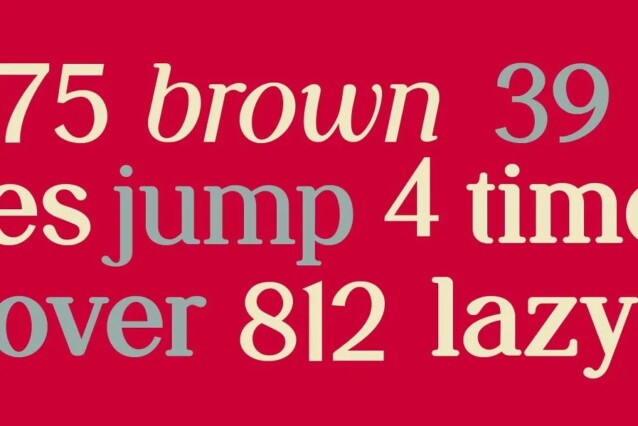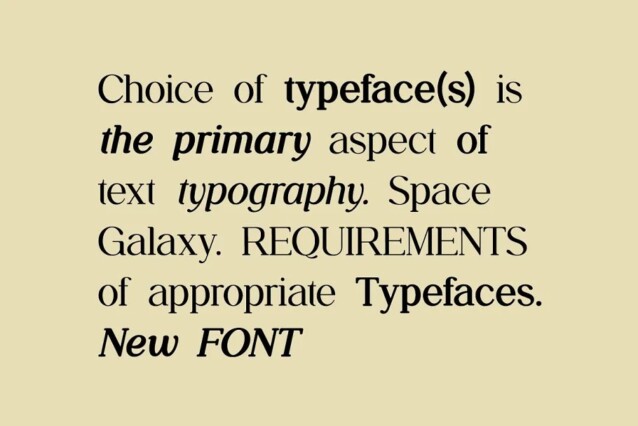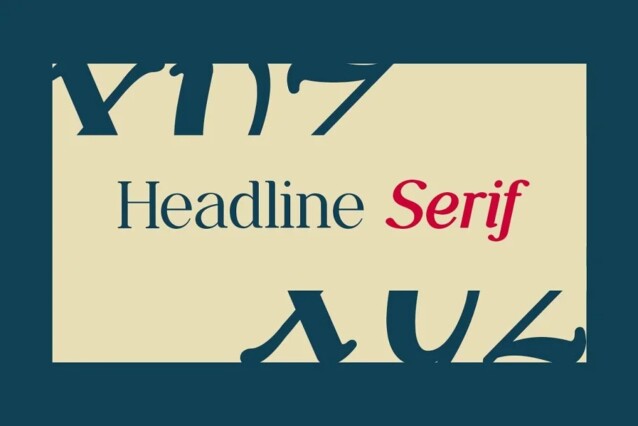
New Bashopilias Font Family
New Bashopilias Font is a classic and elegant serif font family with many weights that you can mix and match. This font is ideally suited for a wide variety of projects, such as signature, stationery, logo, wedding, typography quotes, magazine or book covers, website headers, clothing, branding, packaging design, and more. Also, fashion-related branding or editorial design displays both masculine and feminine qualities.